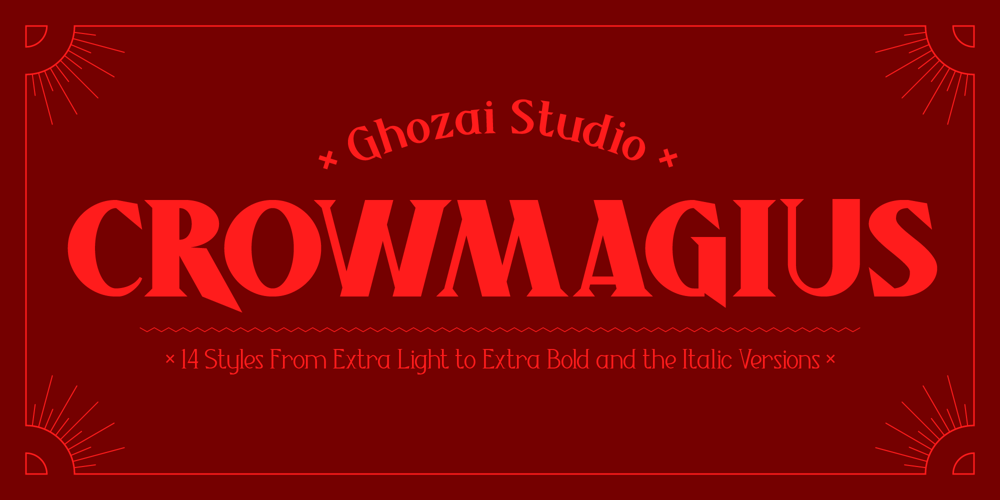
Crowmagius Font Family was designed by Manzur Ghozaali and published by Ghozai Studio. Crowmagius contains 14 styles and family package options. Crowmagius is a serif font that comes with 14 styles (7 plain and 7 italic styles). Combining a bold and thin stroke to give a high contrast and personality for the font, and bring fresh, lively features to its design. With a wide range of styles, Crowmagius is suitable for any design project such as luxury design (hotel logo, restaurant menu, restaurant poster or web, wedding invitation), fashion, band poster, headline, and many others.